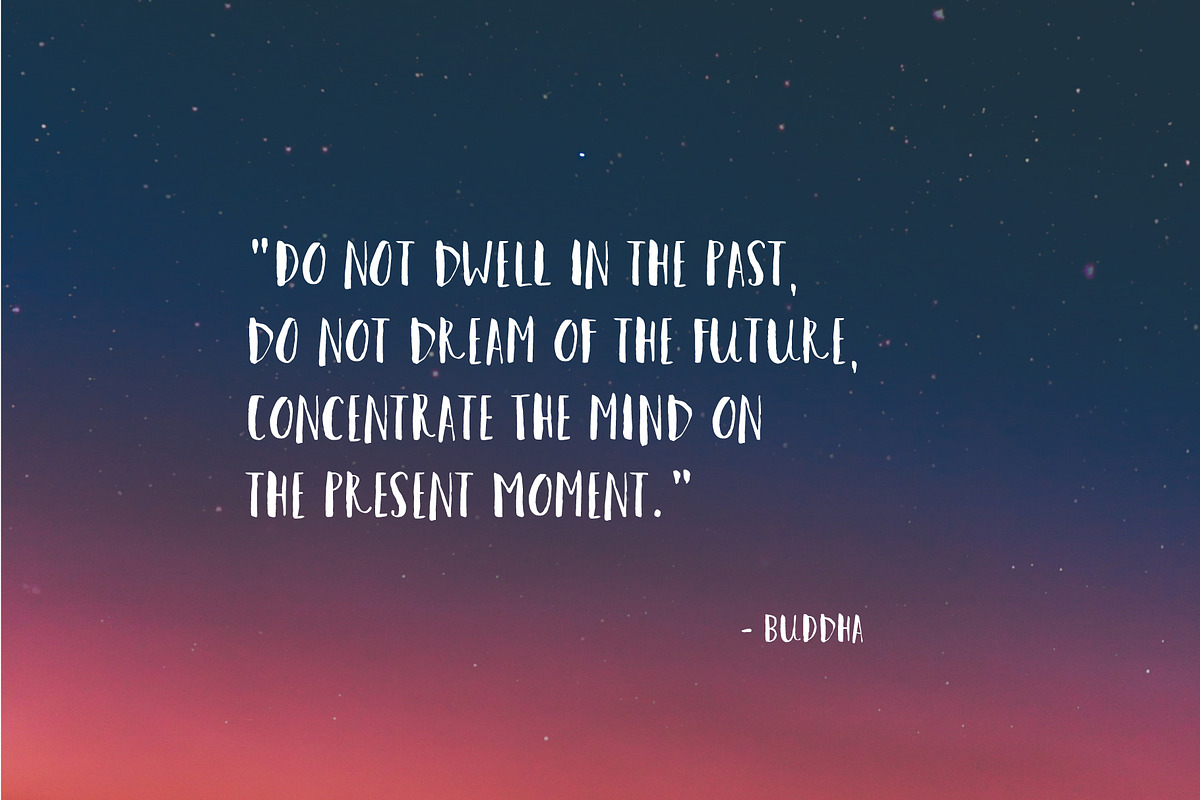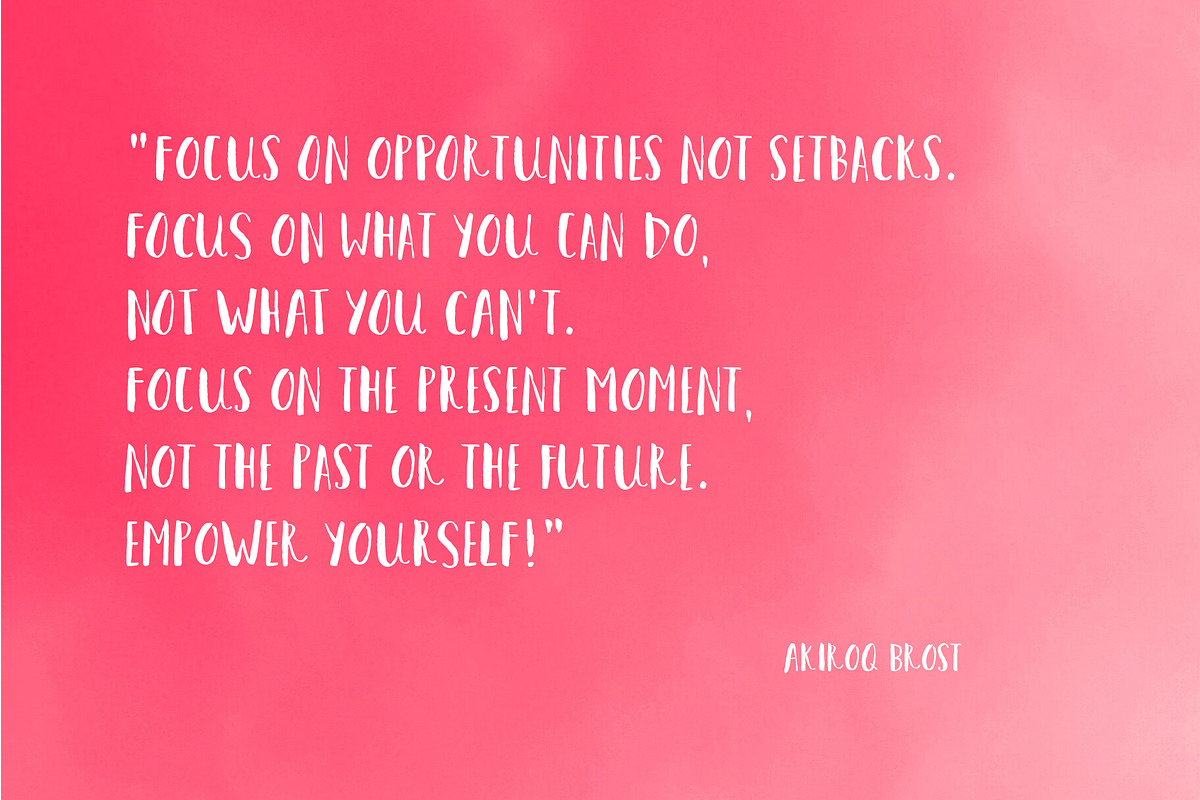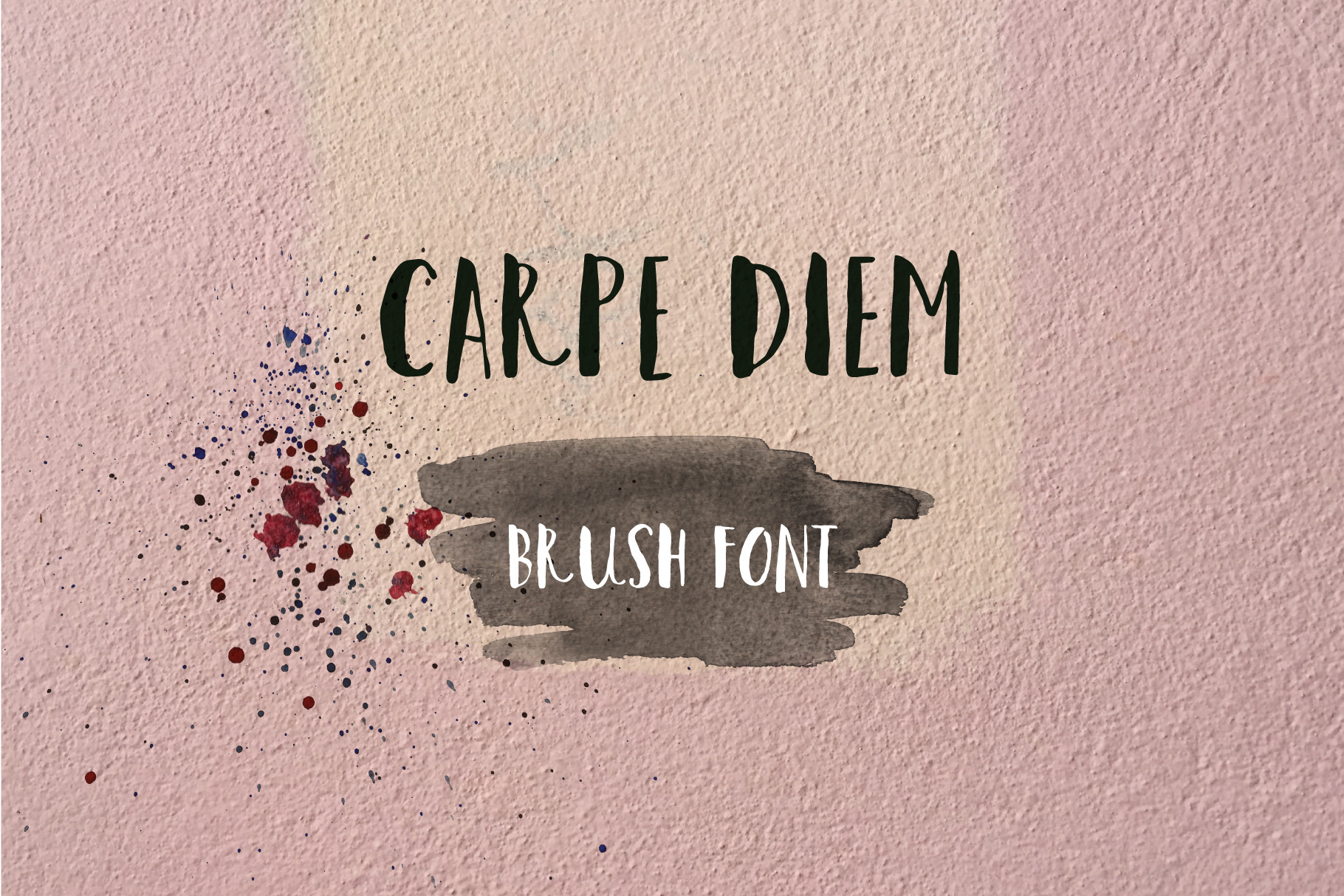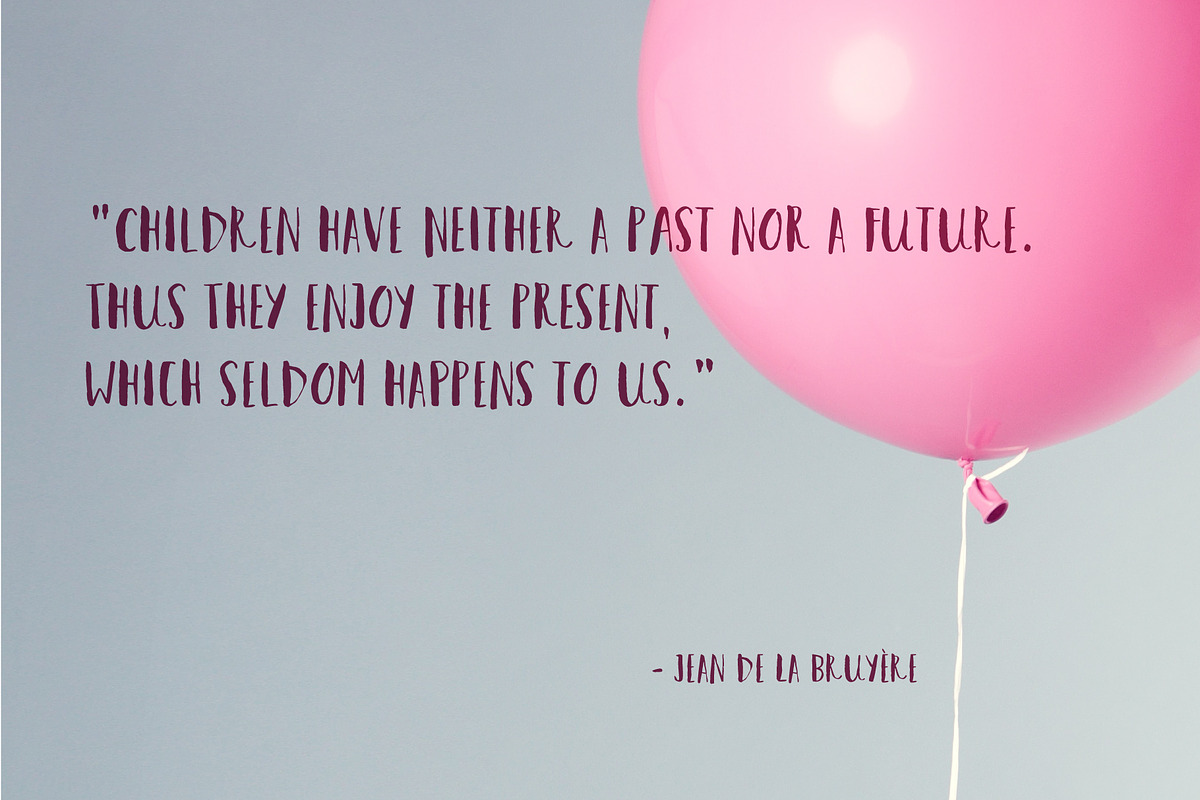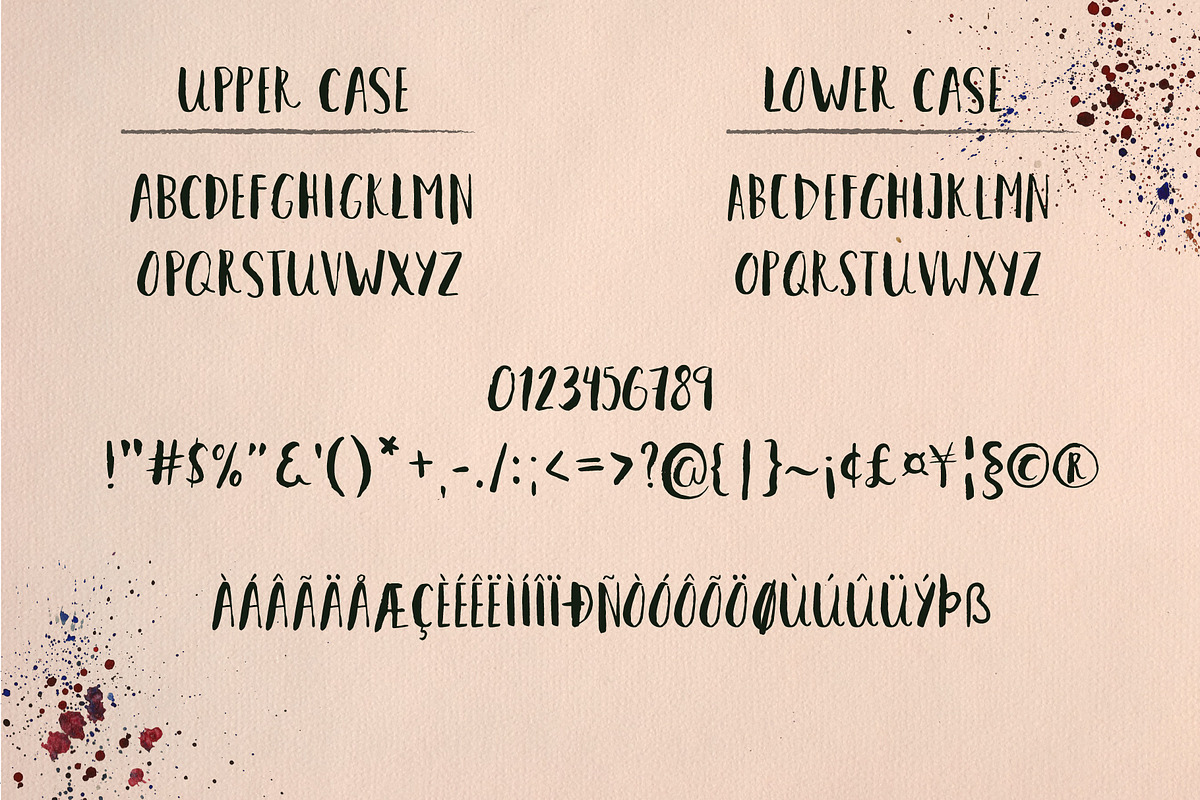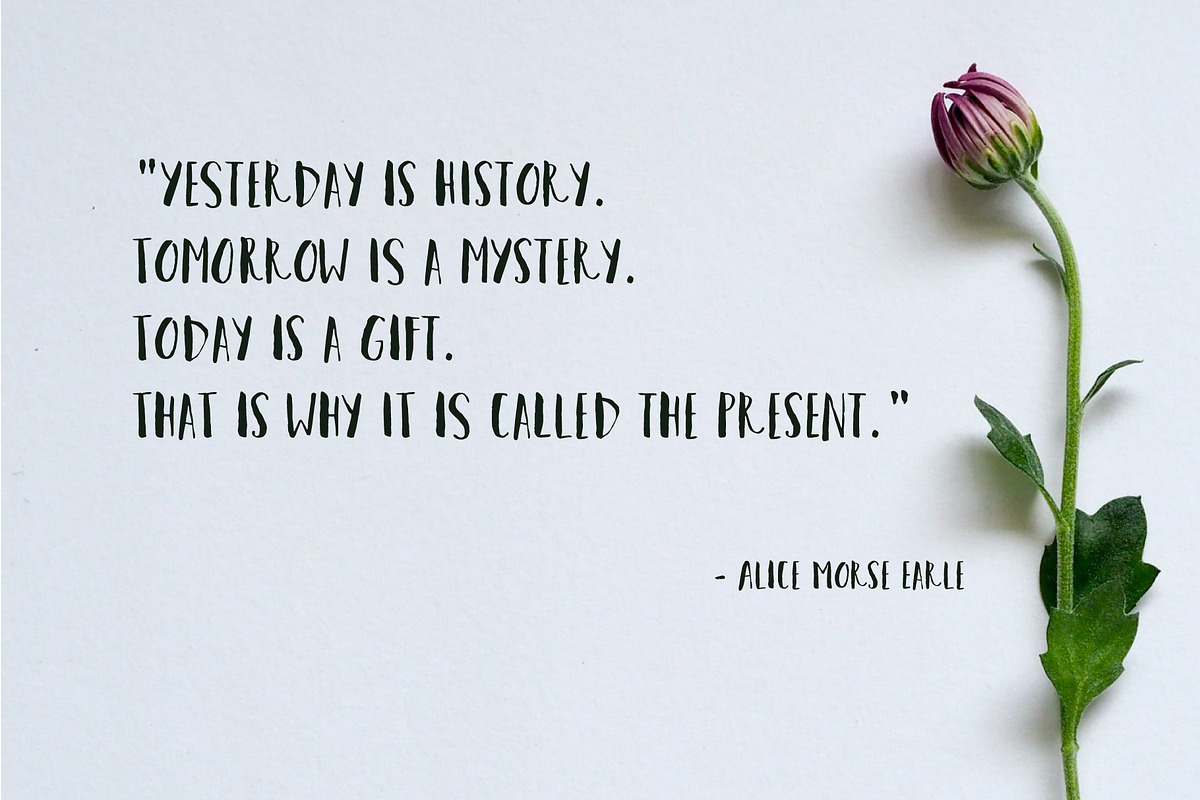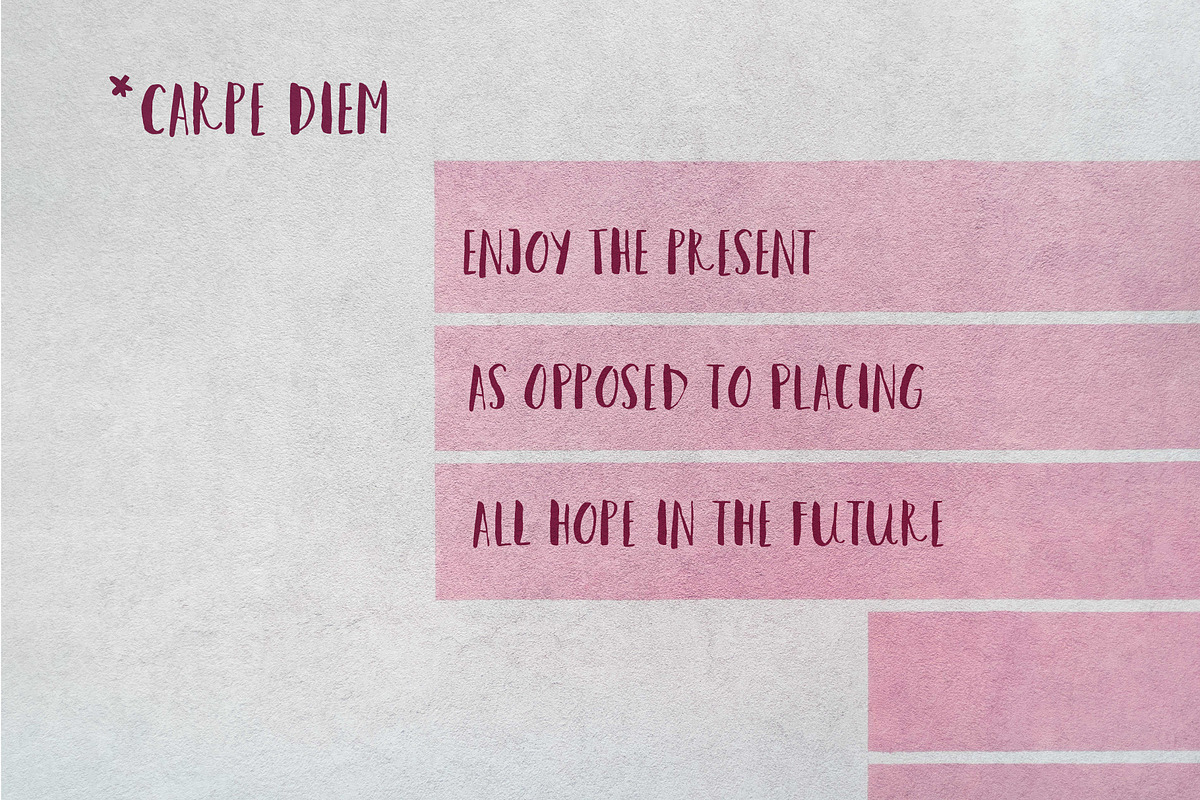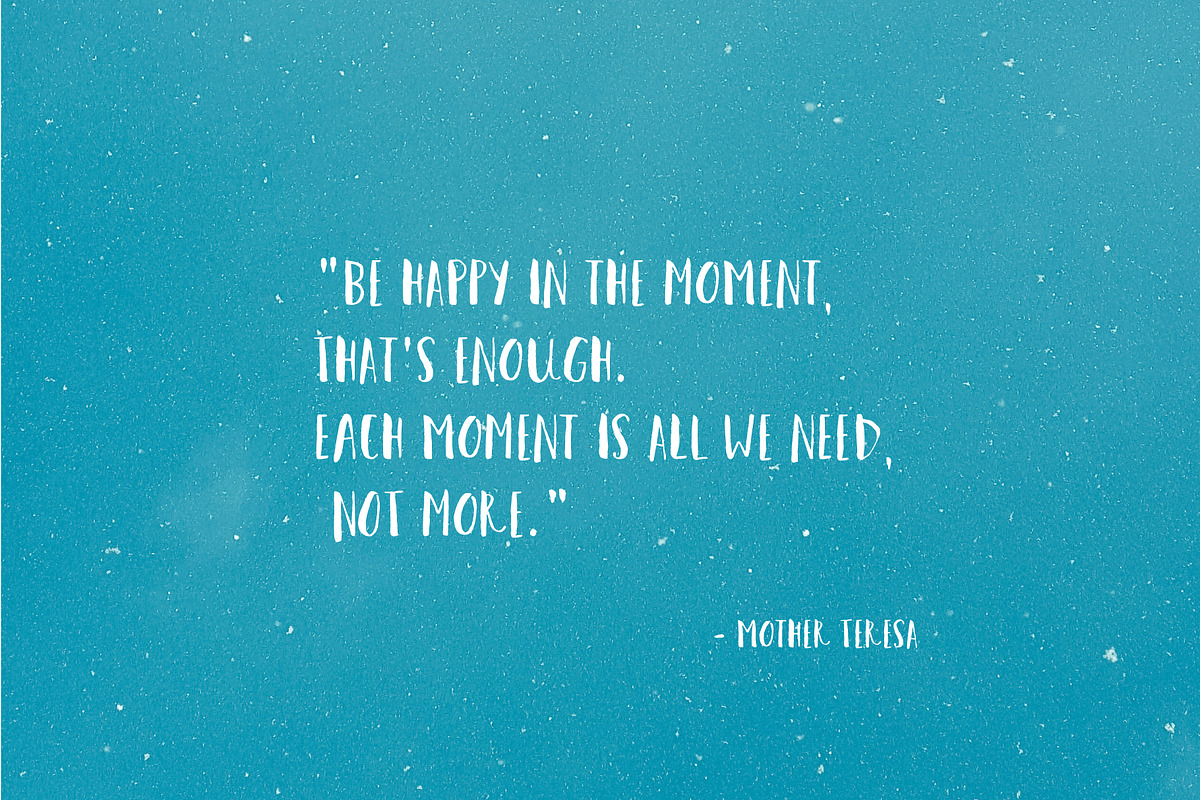
Carpe Diem - Brush Font
Introducing Carpe Diem Brush Font.
This is a brushed font created with a watercolor smooth brush, perfect to add a personal hand-drawn feeling to any design.
Great in large and small sizes. Play with letter spacing and combining upper and lower cases in words. Perfect to use in posters, headlines, packaging, flyers and so much more. Each letter is handwritten by hand and developed into an inventive font, preserving carefully the Imperfect aesthetic look.